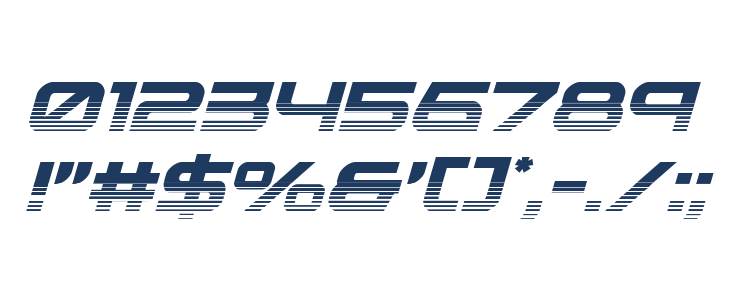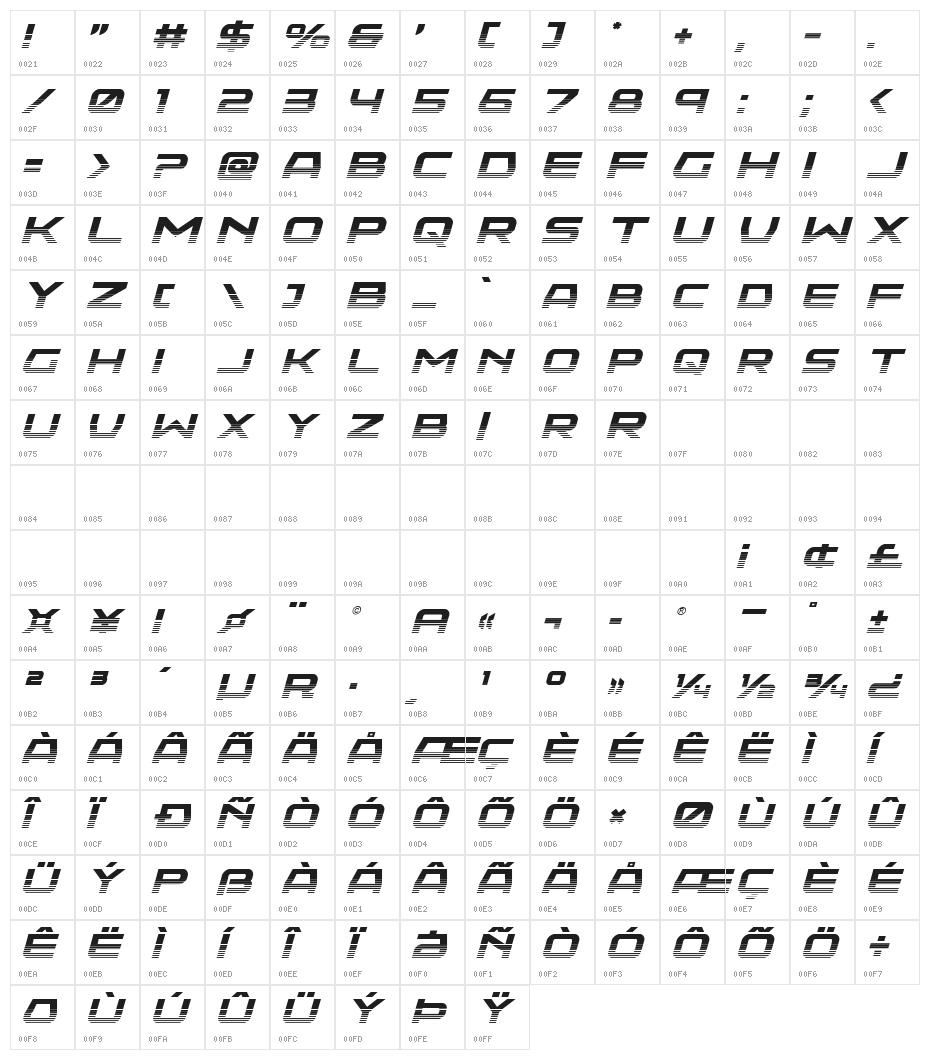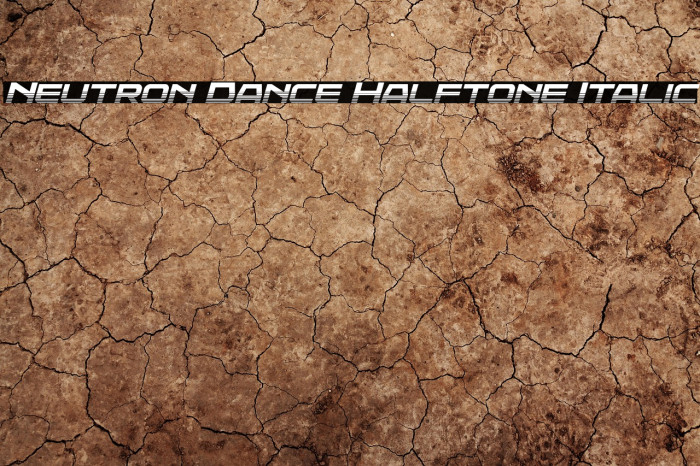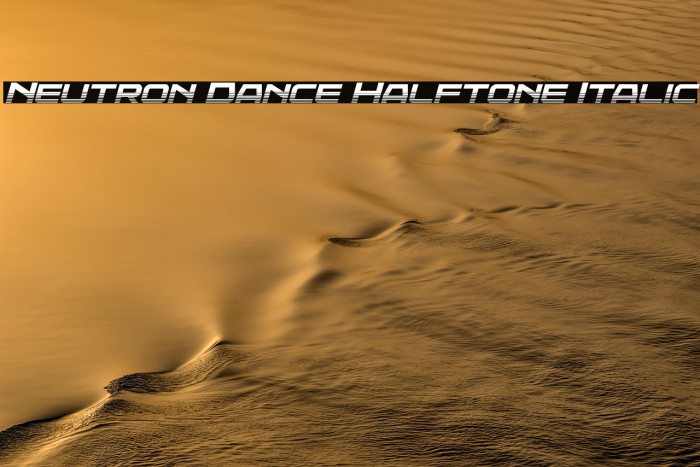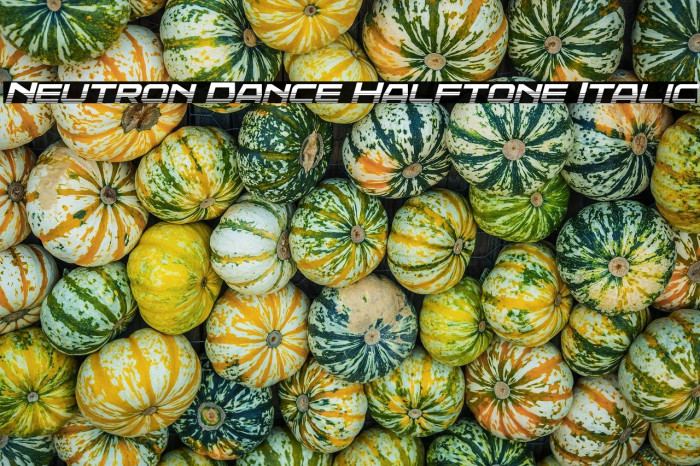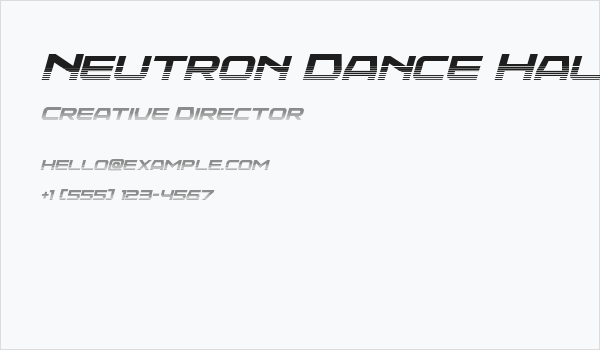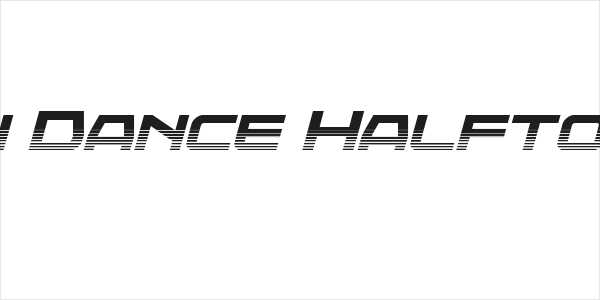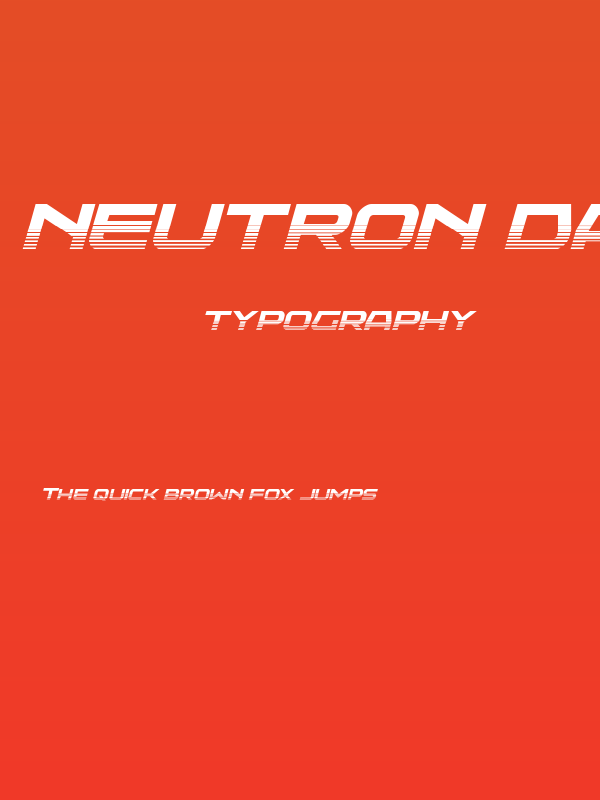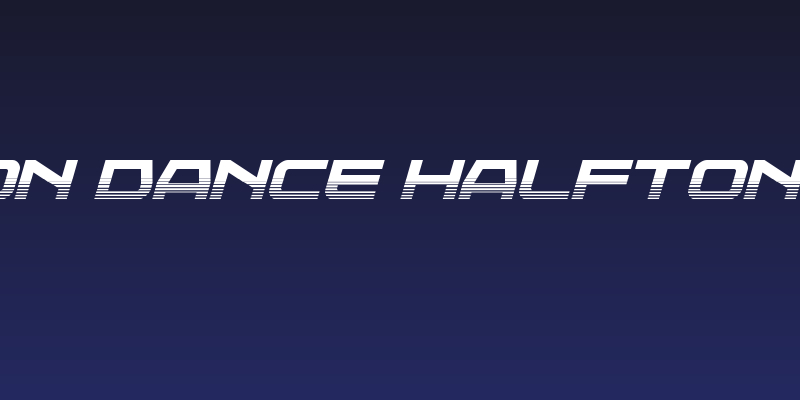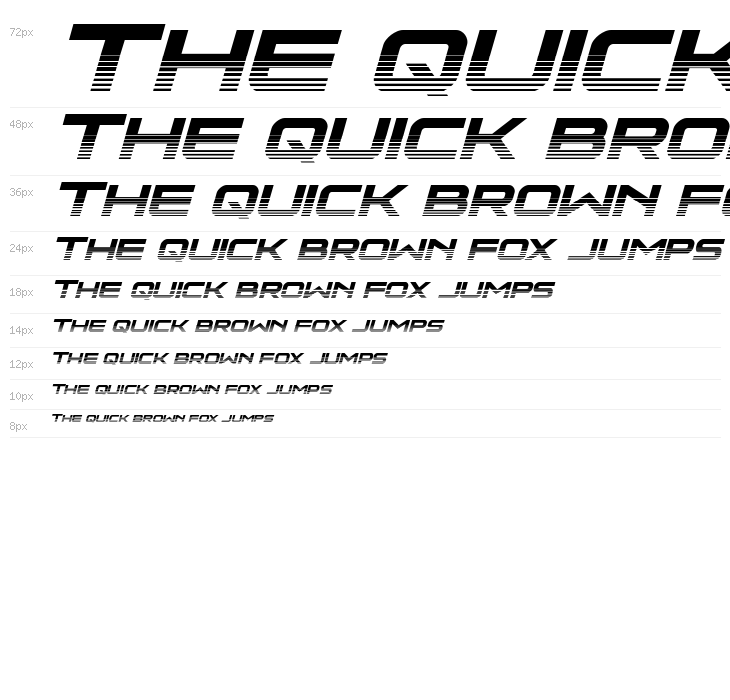
Neutron Dance Halftone Italic Font
Neutron Dance Halftone Italic Description
This font features a dynamic and futuristic design with a halftone effect that gives it a sense of movement and energy. The characters are italicized, adding to the forward momentum and sleek appearance. The use of horizontal lines within each character creates a unique texture and visual interest, making it stand out in any design. The font maintains a consistent width and spacing, ensuring readability while still offering a bold and striking presence. Its modern aesthetic is perfect for projects that require a contemporary and edgy look.
| Proposed Projects | Ideal for tech-related branding, futuristic posters, video game titles, and sci-fi themed designs. |